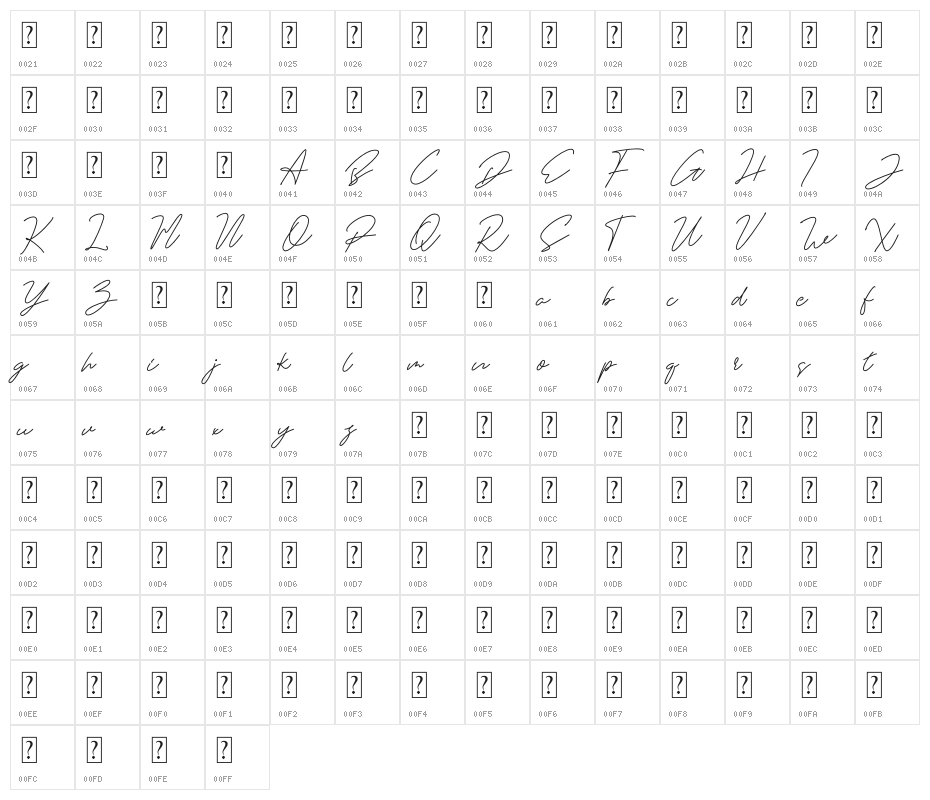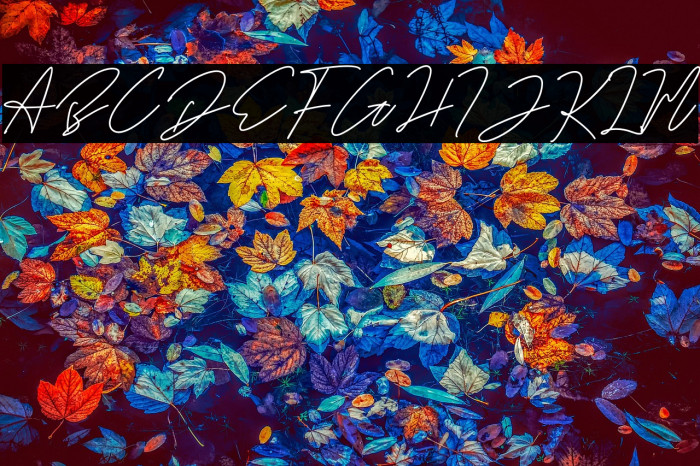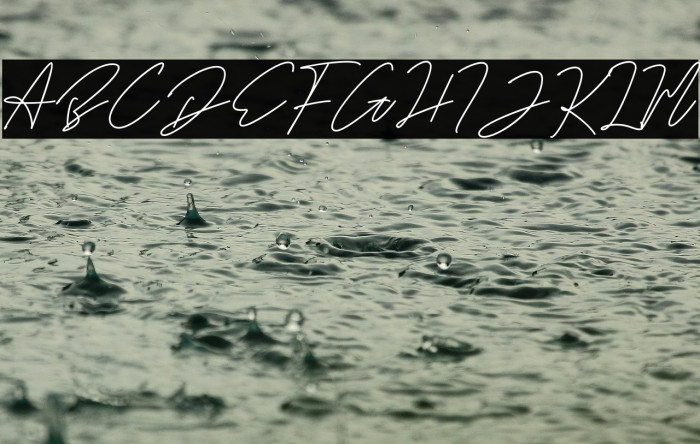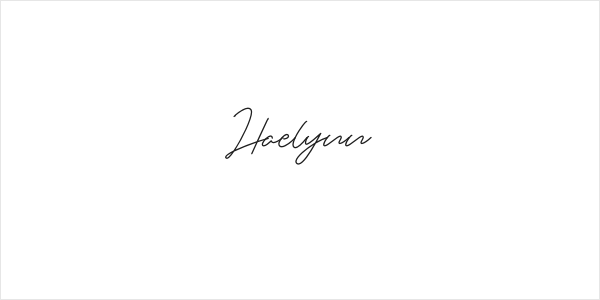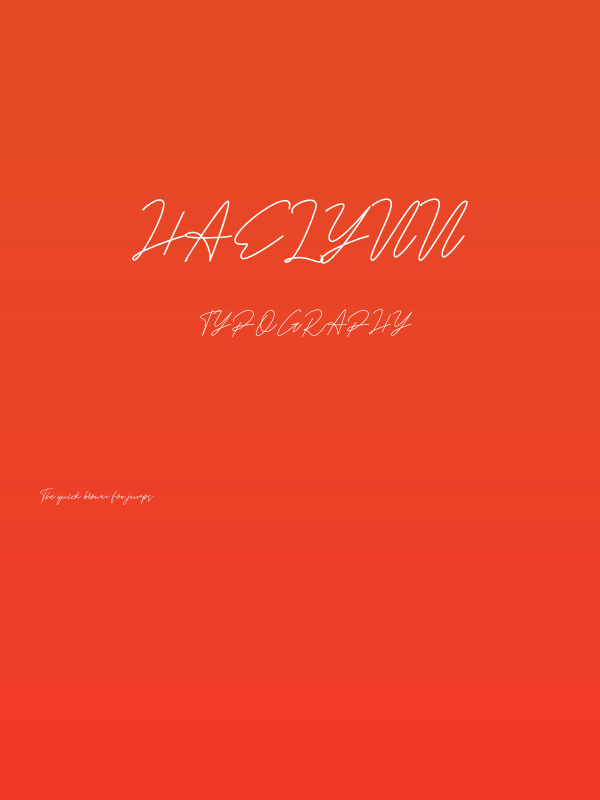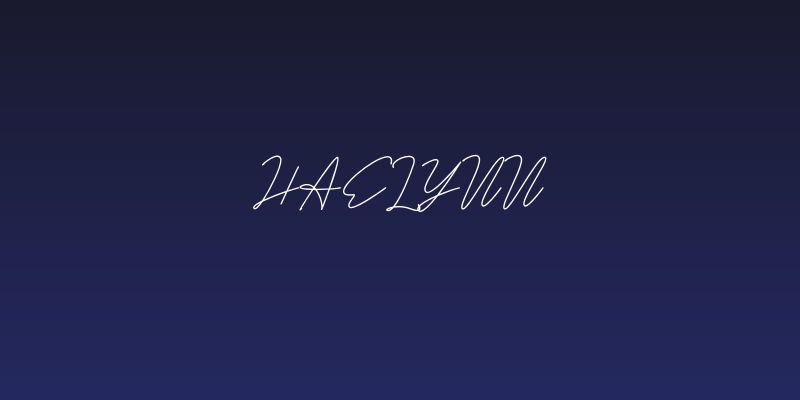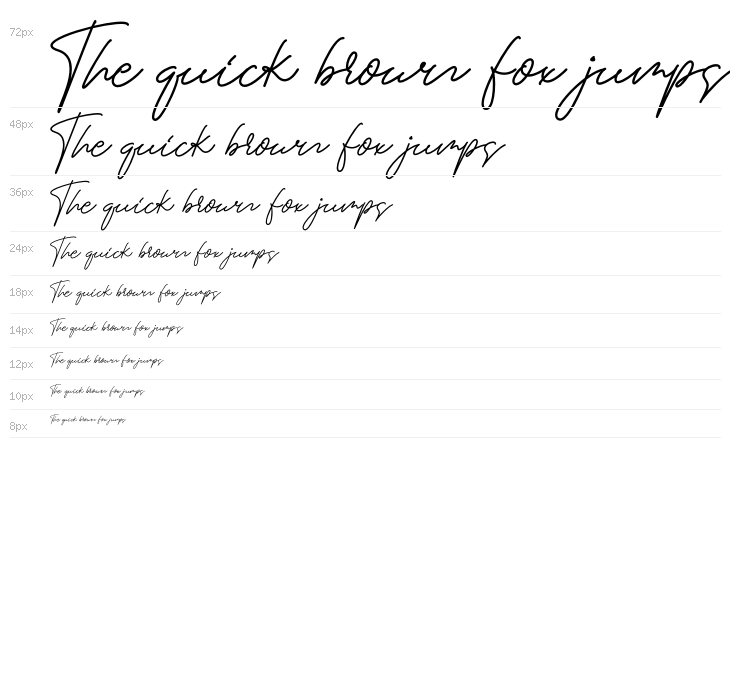
Haelynn Font
Haelynn Description
This elegant script font features a fluid and graceful design, reminiscent of traditional cursive handwriting. The letters are connected seamlessly, creating a harmonious flow that is both sophisticated and approachable. The uppercase letters are slightly more elaborate, with gentle curves and loops, while the lowercase letters maintain a consistent, smooth appearance. The font's delicate strokes and moderate contrast between thick and thin lines add to its refined aesthetic. It is well-suited for projects that require a personal touch or a sense of elegance.
| Use Case | Logos, Invitations, Personal branding |
| Proposed Projects | Ideal for wedding invitations, greeting cards, personal branding, and elegant packaging designs. |